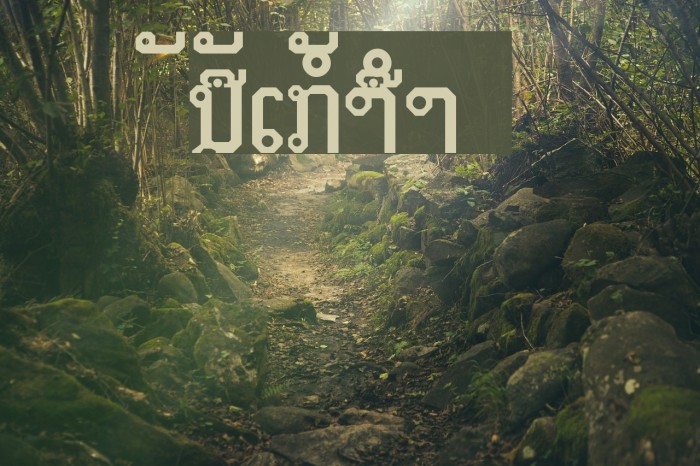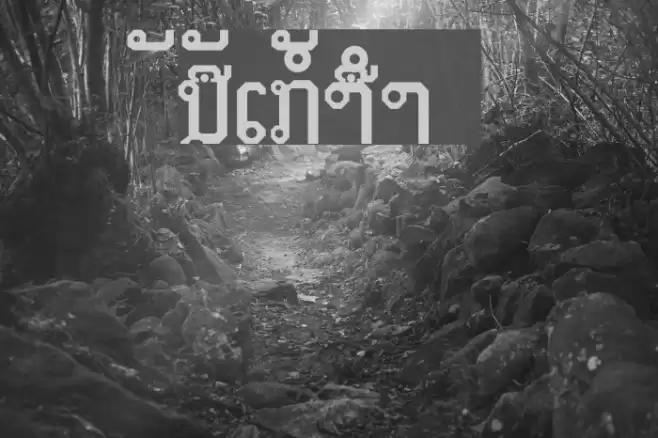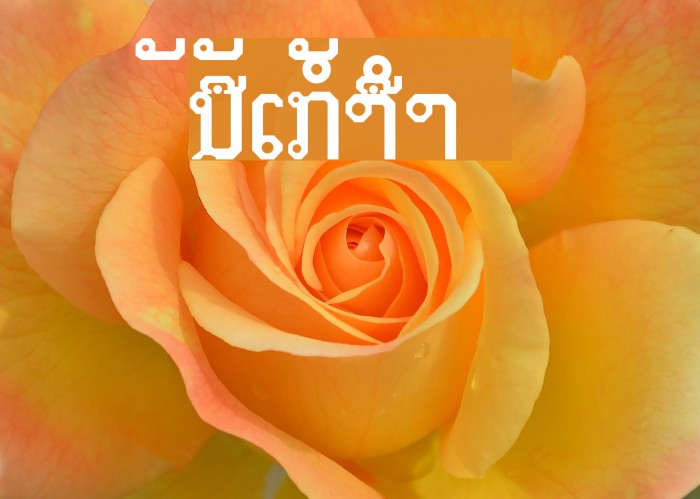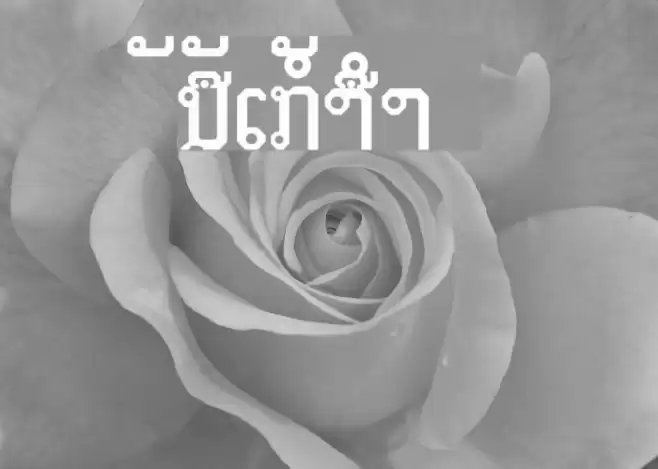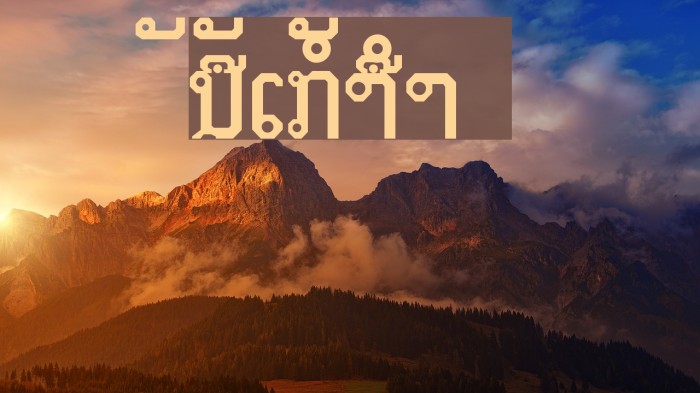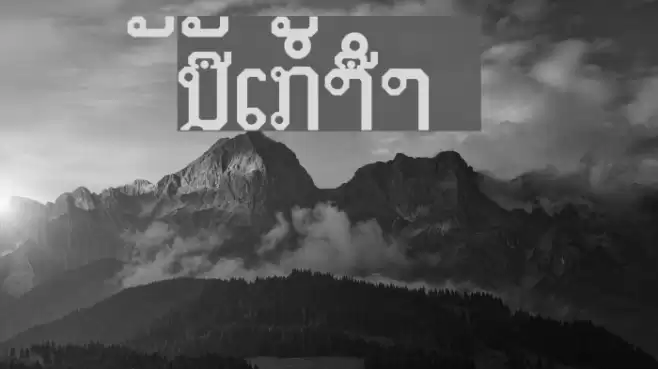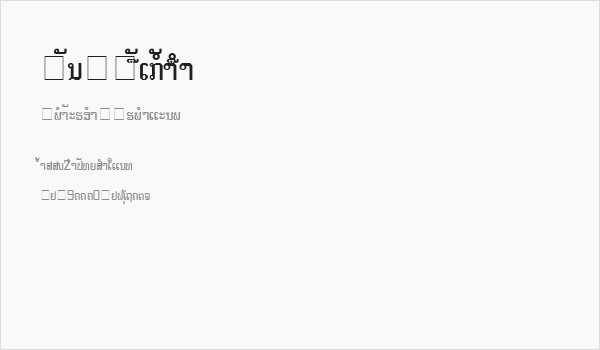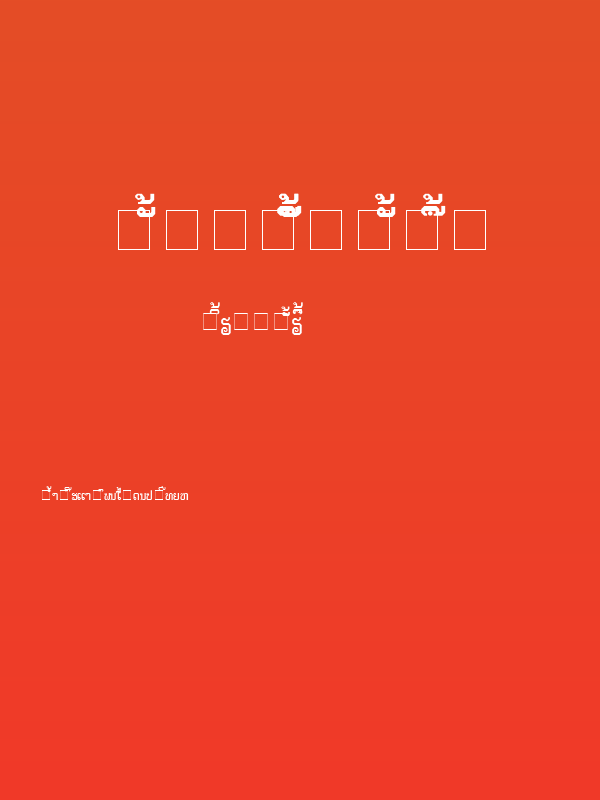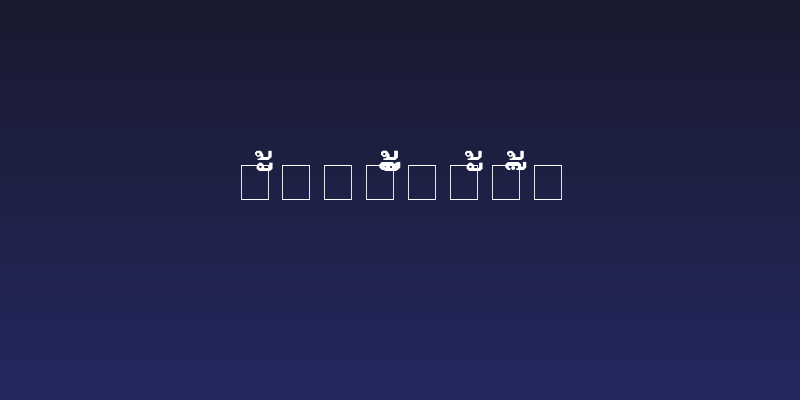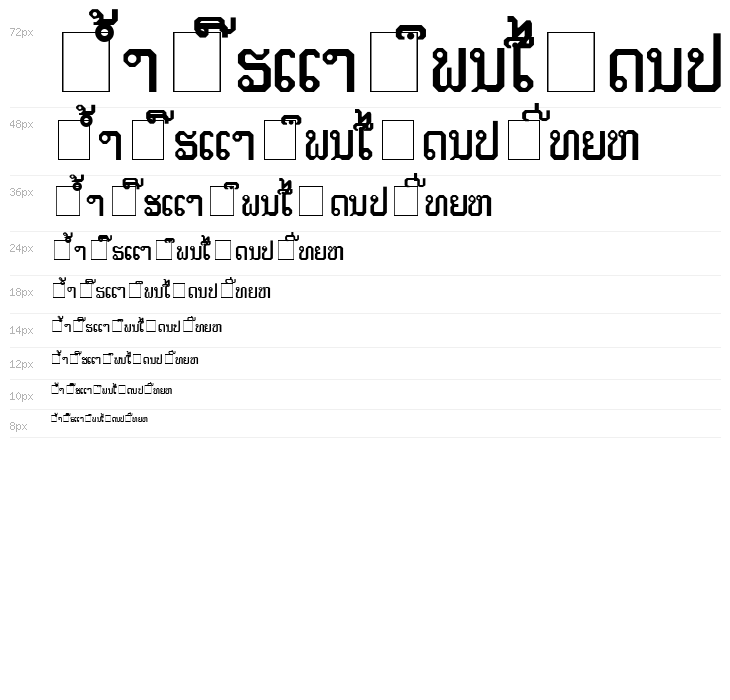
Lao Tangdaene Font
Lao Tangdaene Description
This font features a distinct and bold style, characterized by its geometric and angular shapes. The characters are crafted with a strong emphasis on vertical and horizontal lines, giving it a structured and modern appearance. The font includes unique glyphs that are culturally specific, adding an exotic and traditional flair. The numerals are consistent with the overall design, maintaining the bold and angular aesthetic. This font is particularly suitable for designs that require a cultural or traditional touch, while still maintaining a modern and clean look.
| Overall Style | Modern with traditional elements |
| Use Case | Logos, Posters, Cultural Event Materials |
| Proposed Projects | Ideal for cultural event posters, traditional product packaging, and modern design projects requiring a unique flair. |